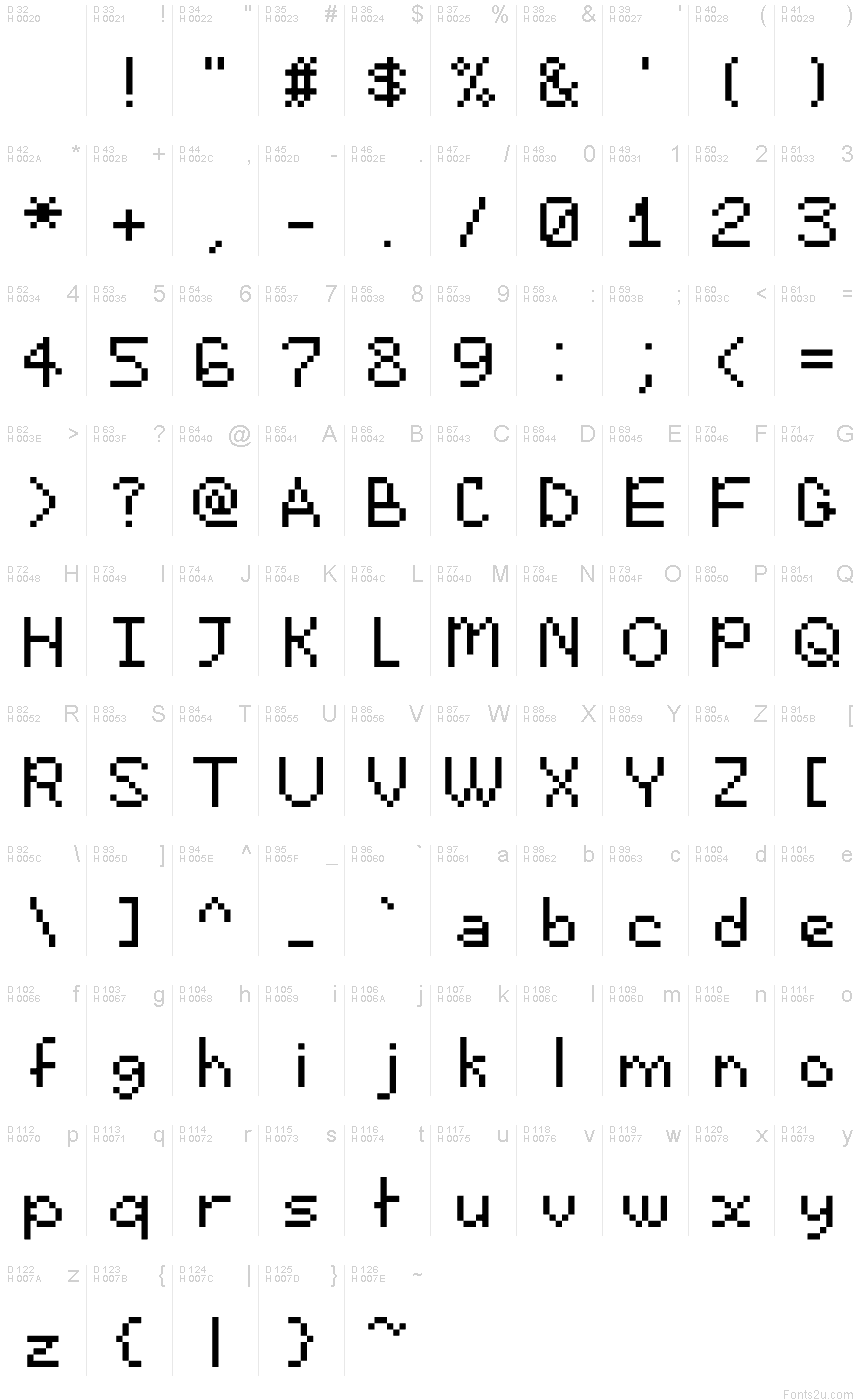
Emoticomic Regular
I love the look of hand-lettering on web-comic, but when working on a bitmap comic, it can be difficult to do. Traditional fonts often don't work as they don't render well at small sizes. So, I created a font that would be as close to hand-lettering as you can get in pixel form. This version is sized specifically for emoticomics (smiley) type graphics. Look for my other version sized for sprite comics.